27 Essential Modern Arabic Geometric Fonts for Branding That Shape Minimalist Luxury Identities in 2026
modern arabic geometric fonts for branding are rising in popularity among designers who want clean, structured Arabic type that still feels authentic. Their geometric skeletons improve legibility at display sizes while preserving calligraphic rhythm.
1. Fekrah – Arabic Font
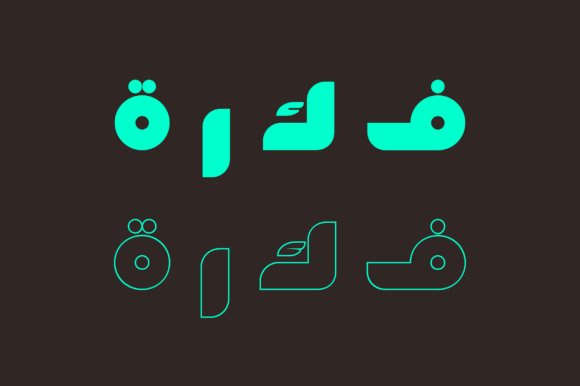
Fekrah is a contemporary Arabic typeface built on geometric Kufi principles, with modular stems, open counters and crisp terminals that give logotypes and headlines an uncluttered, confident voice. Its balanced proportions and measured negative space place it among modern arabic geometric fonts for branding, packaging, and tech identity work where precision and a clear visual signature matter. Use it large for wordmarks or stacked in display layouts to anchor a brand with calm geometric restraint.
The family ships with OpenType alternates, contextual ligatures, and refined kerning pairs to keep tightly set Arabic text readable at display sizes. I appreciate how the glyph set supports bilingual systems-Latin companions with matching x-heights pair neatly-and how the steady rhythm of strokes works for signage, web headers, and printed identity pieces. Designers will find predictable metrics and low-contrast strokes useful when building a repeatable typographic system for brand use.
My Recommendation: I would reach for Fekrah when a brand needs a precise Arabic mark that reads modern without appearing decorative. Its geometric clarity makes logo work and product packaging straightforward, and the OpenType features give enough flexibility for crafted headlines. Use it for tech brands, minimalist fashion labels, or any identity that demands legible, geometric Arabic typography.
2. Zahara Regular Font
Zahara Regular presents bold strokes and calligraphic detail to create an Arabic-inspired display face that reads like celebration on the page. The design blends flowing ligatures with geometric anchors so Ramadan campaigns, festival posters, and greeting cards gain expressive personality while retaining visual weight. It performs as a showpiece at large sizes and as an ornamental headline in editorial spreads.
The font includes discretionary ligatures and decorative alternates that let you adjust word shapes for banners or printed invites, and its calligraphic terminals respond well to layered color and texture. In bilingual layouts it pairs smoothly with clean sans-serif Latin types, helping maintain hierarchy without competing with imagery. Try it for event branding, seasonal packaging, or any project that benefits from expressive Arabic display typographic voice.
My Recommendation: I recommend Zahara Regular for cultural or festive projects where a strong, expressive Arabic display type is needed. It shines on posters, event identities, and seasonal packaging thanks to its ligatures and ornamental alternates. For projects that mix Latin and Arabic, pair Zahara with a restrained sans-serif to keep the voice bold yet readable.
3. Walidin Font
Walidin Font channels classical Kufi into a bold display family, using square terminals and compact horizontals to create a monument-like presence. The thick, block-like letterforms cut through dense backgrounds and are ideal for apparel, signage, or architectural branding where a strong, anchored wordmark is required. A set of dingbats and ornamental glyphs expands options for badges and sealed layouts.
Technically Walidin offers a steady baseline rhythm and minimal curve modulation, which helps when translating marks into carved, embroidered, or printed assets. Given its dense forms, spacing and tracking should be handled deliberately-larger sizes improve readability while tighter tracking suits logotypes. It’s a good choice when you want a historically rooted Arabic look with bold, structural impact.
My Recommendation: I’d use Walidin when a project demands bold Arabic lettering that reads reliably across physical and textile applications. Its Kufi-derived geometry makes it excellent for logos, merchandise, and wayfinding where presence matters. The included dingbats are a handy bonus for badge-style compositions and packaging seals.
4. Minar Block Font
Minar Block Font channels geometric clarity and the visual language of traditional Arabic calligraphy; its letterforms show precise angles and measured curves that read strongly at display sizes. Thoughtful ornamental terminals soften the grid, producing a balance between formal Kufic references and contemporary typographic needs. As part of the wider group of modern arabic geometric fonts for branding, it brings cultural authenticity without sacrificing legibility.